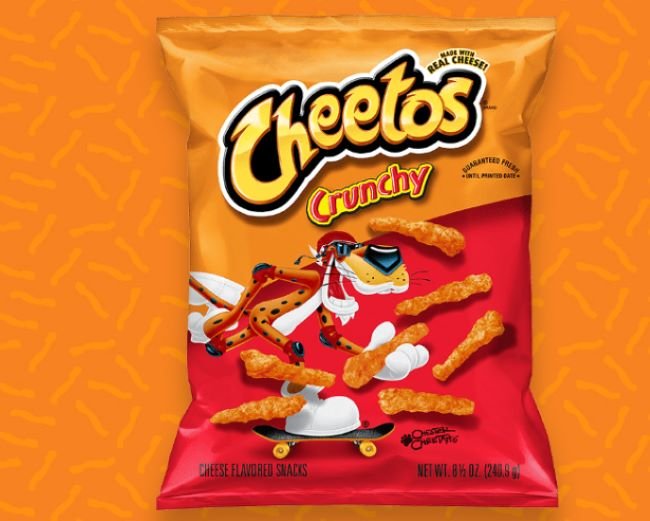
Cheetos font — designed by DoodleNeuding24 as a fan recreation and available for free download, capturing the brand’s playful bubbly lettering — is the typography of a brand whose entire identity is built around the theatrical personality of a cartoon mascot, Chester Cheetah, and which has consequently developed a visual language that is unusually expressive for a snack food: the exaggerated curves and animated quality of the Cheetos wordmark letterforms communicate the same shameless enthusiasm that Chester brings to every piece of advertising, the sense that snack eating is not a quiet private pleasure but a public declaration of flavour preference. The freely available Cheetos Font brings this exuberant, cartoon-snack energy to creative work.